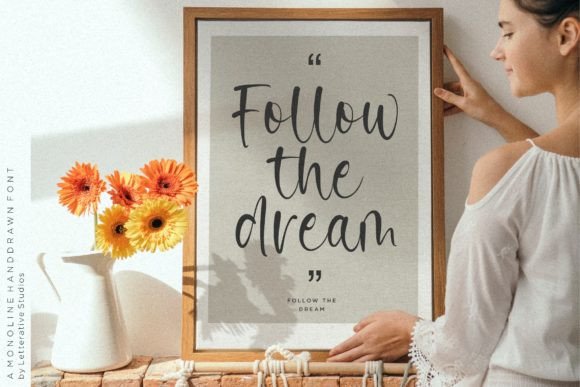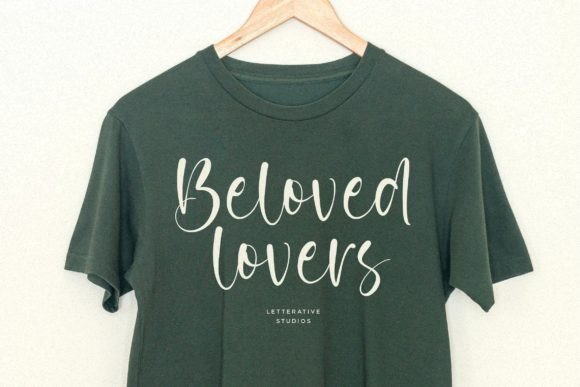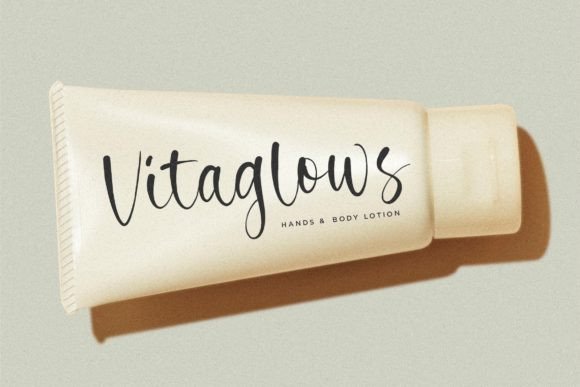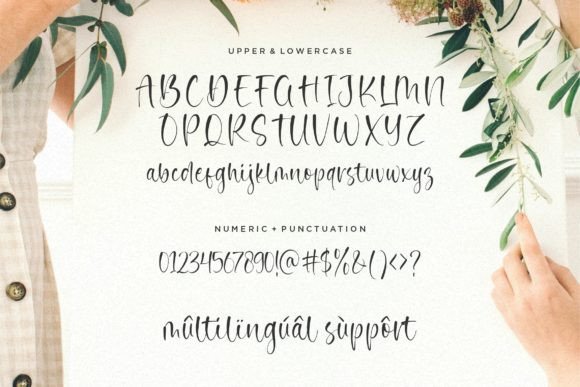
Noble Dream Font
A Stylish and Trendy Handwritten Script
Noble Dream is an elegant handwritten font created to add sophistication and style to any design. Each letter features smooth curves and graceful lines that blend classic calligraphy with a fresh, modern feel. The combination of timeless beauty and contemporary details makes this font perfect for projects that need to feel upscale and memorable.
Whether you’re designing professional branding or personal stationery, Noble Dream helps your words shine with elegance and confidence.
Noble Dream is a versatile font that adapts easily to a wide range of uses. It’s ideal for wedding invitations, save-the-date cards, and event signage. The stylish script brings a romantic touch that feels both classic and unique.
Use Noble Dream for logos, business cards, and brand identities. The clean, flowing shapes make your brand look professional while still feeling personal and approachable.
This font also shines on product packaging, boutique labels, and luxury items. The refined style helps your products stand out with an air of sophistication.
Noble Dream is perfect for social media graphics, blog headers, and Pinterest pins. No matter where you use it, the font delivers a polished, modern look that captures attention.
The font includes uppercase and lowercase letters, numbers, and punctuation marks. Ligatures are included to help your text flow naturally and look cohesive.
Clear, Elegant, and Easy to Read
Even with its decorative character, Noble Dream stays clear and legible at any size. Balanced spacing between letters ensures your text always looks clean and organized, whether you use it for big headlines or small captions.
Many designers pair Noble Dream with a simple sans-serif font to create contrast. Use Noble Dream for titles and the sans-serif for supporting text. This combination guides the reader’s eye and keeps layouts feeling fresh and modern.
To highlight Noble Dream’s sophisticated feel, use soft backgrounds and neutral color palettes. Shades like blush, ivory, and warm gray allow the elegant lines to stand out without distraction.
When designing wedding materials or premium packaging, consider adding delicate illustrations or watercolor textures to enhance the romantic mood. For social media and advertising, keep your layouts clean so the font stays the main focus.
Think about the mood you want to create. Noble Dream is perfect for projects that should feel refined, stylish, and timeless.
Noble Dream is more than just a handwritten script. It’s a creative asset that transforms everyday text into something special. Its clean curves and graceful flow bring beauty and sophistication to any project.
Adding Noble Dream to your font collection gives you a reliable choice for all kinds of creative work. From weddings and branding to packaging and social media, this font adapts effortlessly to your ideas.